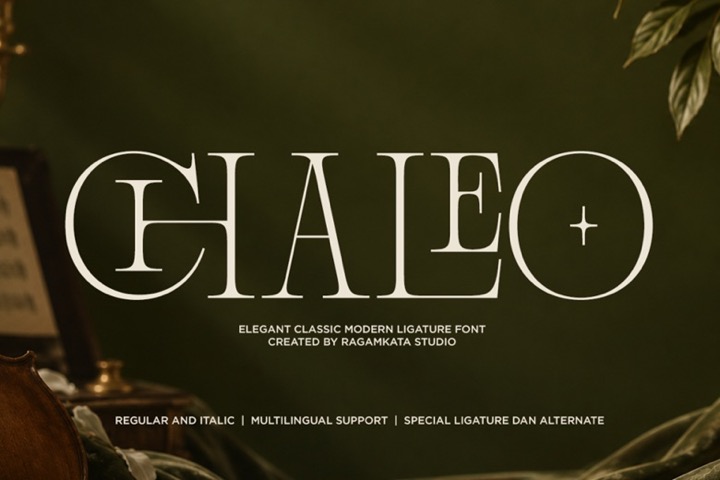
Chaleo Font is an elegant ligature serif typeface with refined details, graceful letterforms, and a distinctive editorial character. Designed by RagamKata Studio, it gives sophisticated projects a polished and memorable appearance.
Its stylish serifs and decorative ligatures make it well suited to luxury branding, fashion magazines, invitations, product packaging, logos, posters, headlines, and other premium design work.